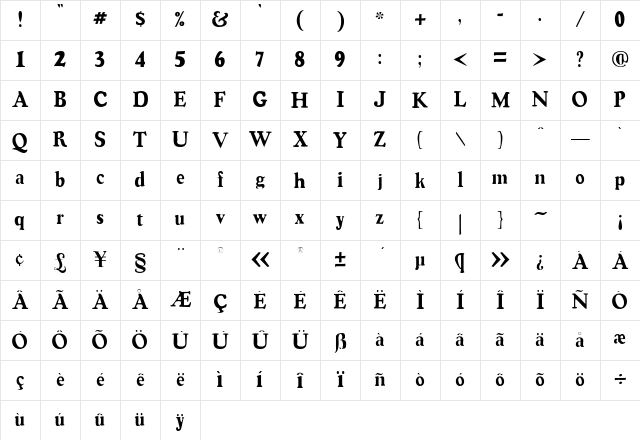
BeaconSSK Regular
Design Context for BeaconSSK
BeaconSSK is a composed and adaptable typeface that performs quietly and consistently across a wide range of design contexts.